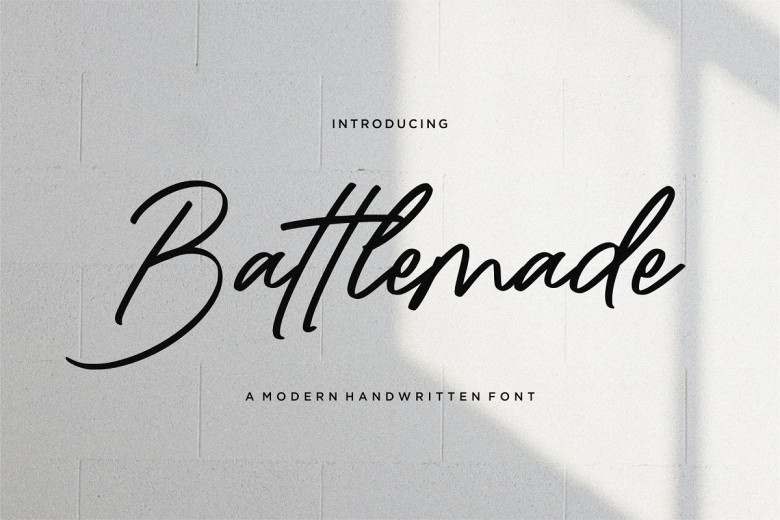
Battlemade Font
Battlemade is a Modern handwritten font. Battlemade is ideal for product packaging, branding project, megazine, social media, wedding, or simply for writing words on top of the background.
Battlemade Handwritten Font